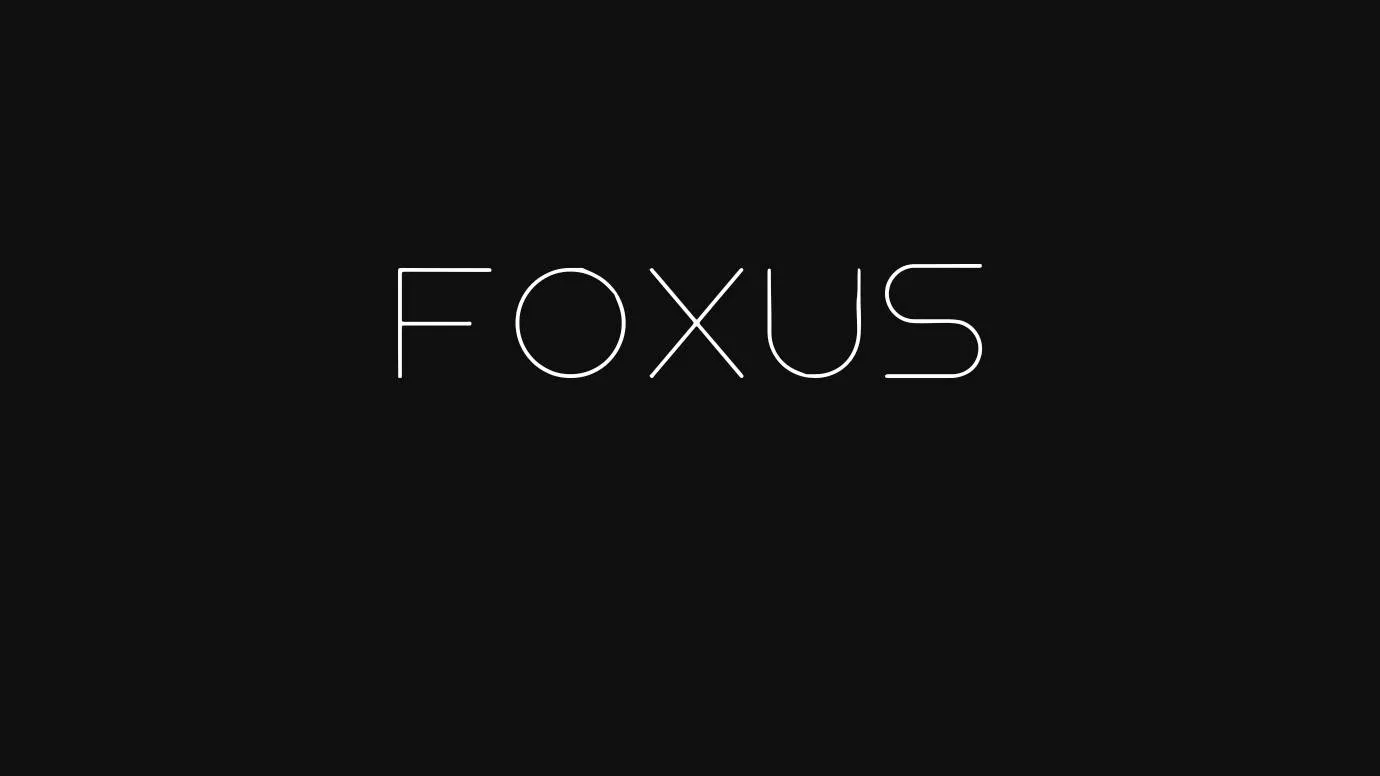
Foxus Font Family is a very neat and clean attractive Sans-Serif typeface and you can make so many amazing projects by using this font. It was designed by Yesaya Amnestain and manufactured by Nest Type2020.
To give a more attractive look to your projects you can also use it for pairing with other fonts such as gimbal extended font.  It looks more good with all types of projects print or digital media.
Foxus Font